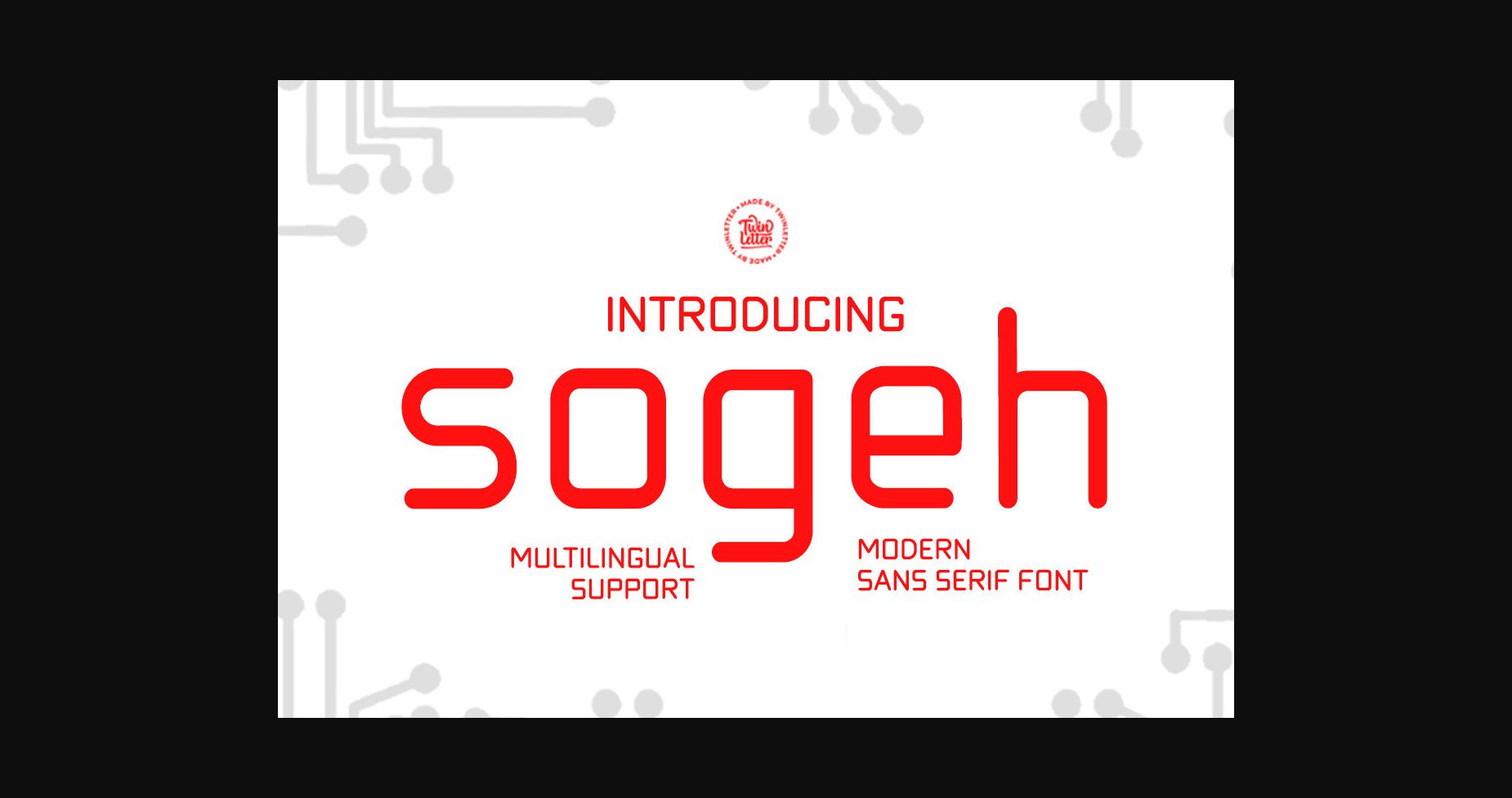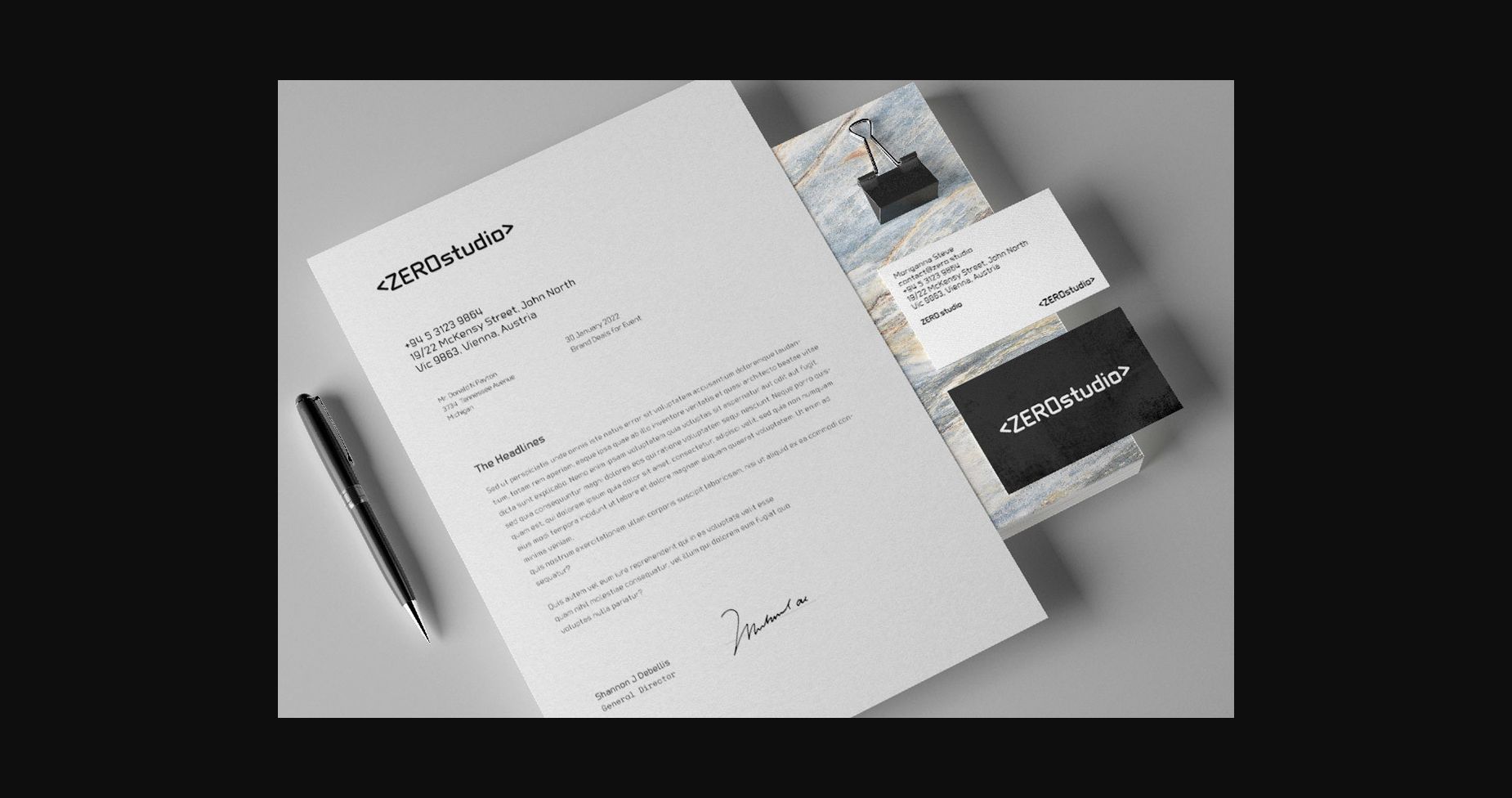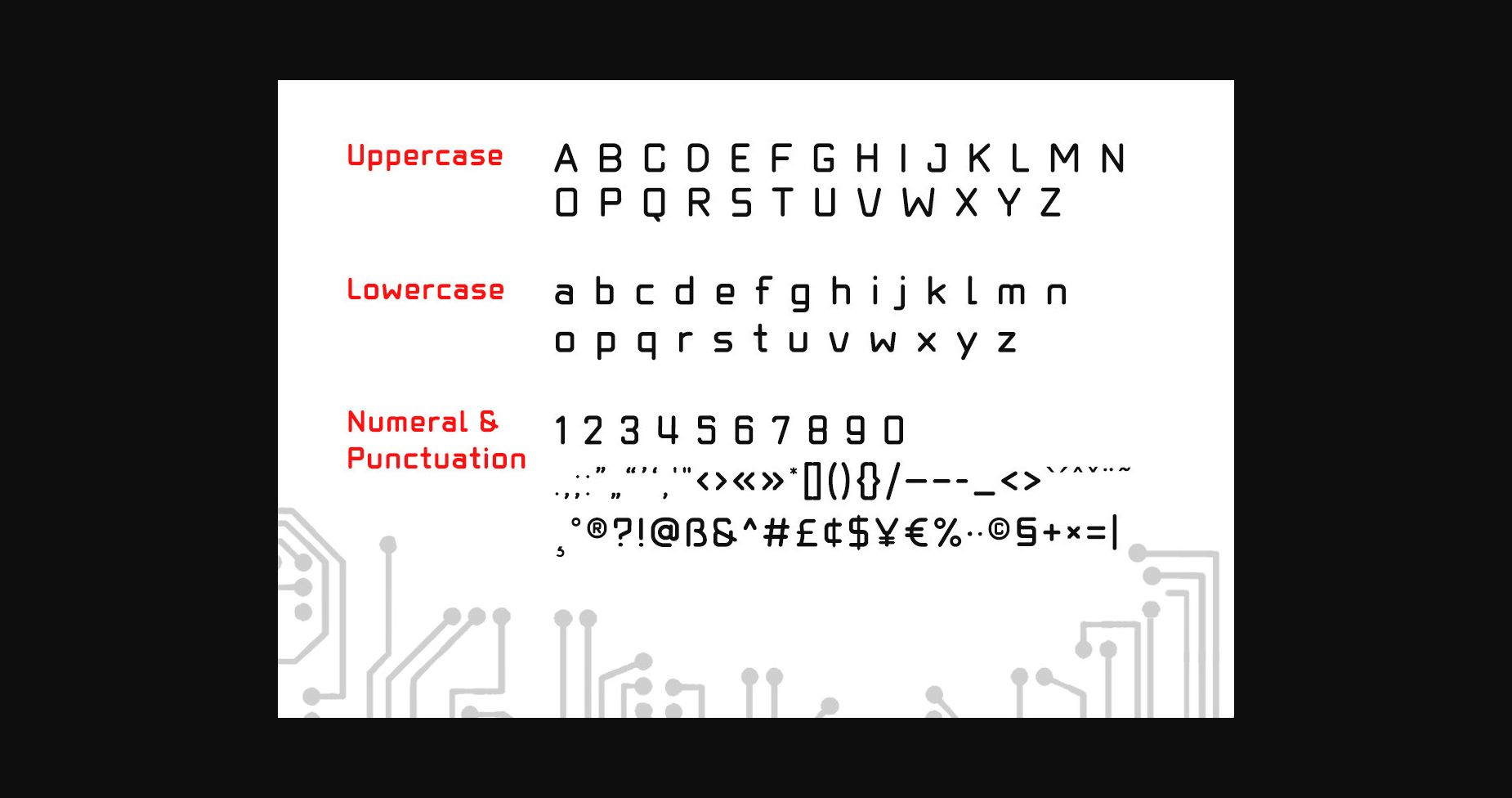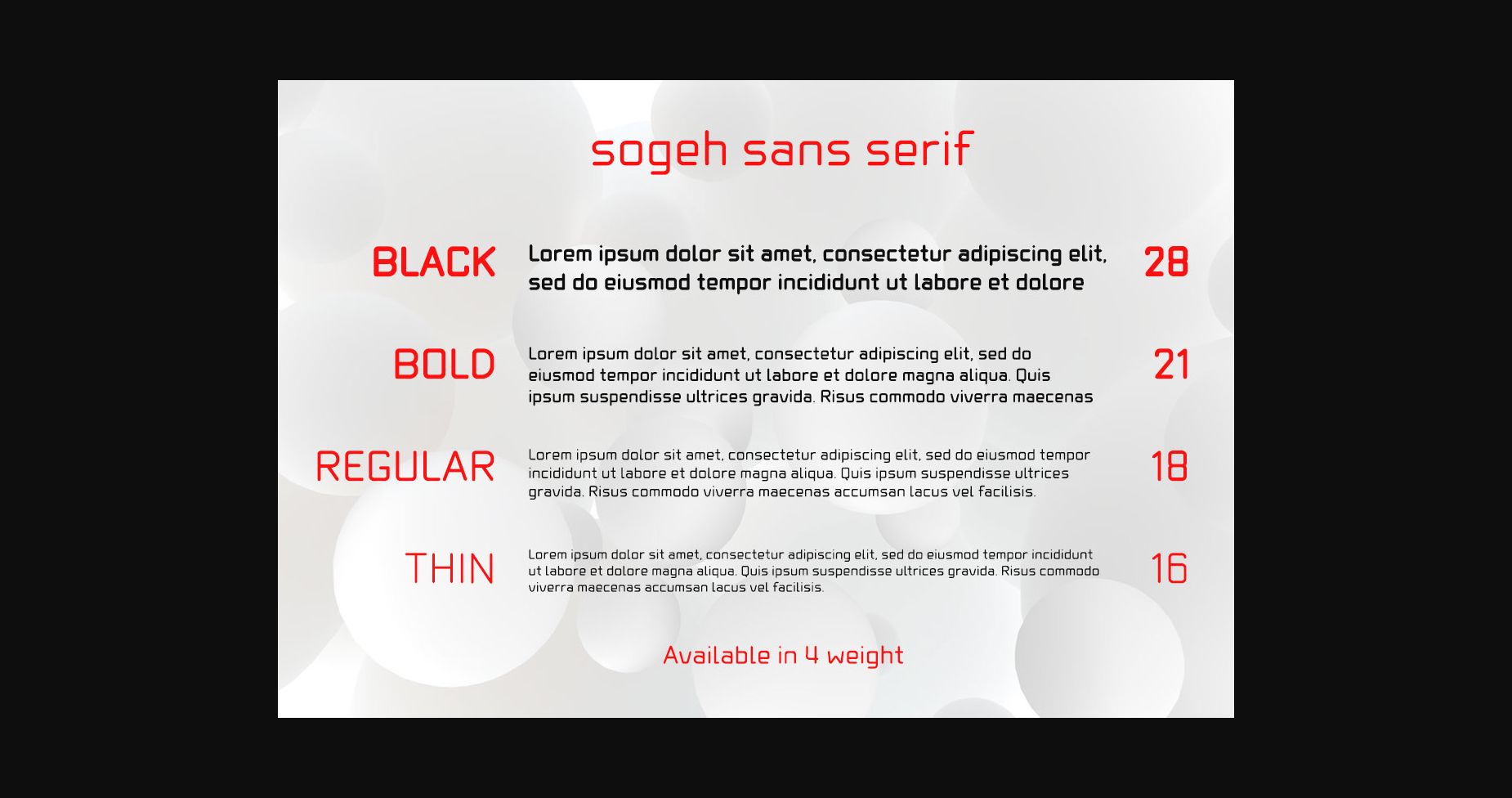
About Sogeh Font
Sogeh is a sans serif font with a minimalistic and straightforward design.
This basic font has a modern shape and an exotic appearance while being comfortable and attractive to the eye. With this font, all of your special projects will look luxurious, cool, and will be appreciated by a large portion of your audience. Use this typeface to achieve the best possible outcomes in all your projects.
Of course, your various design projects will be perfect and extraordinary if you use this font – because this font is equipped with different characters suitable for titles, subtitles, and body text.
This basic font has a modern shape and an exotic appearance while being comfortable and attractive to the eye. With this font, all of your special projects will look luxurious, cool, and will be appreciated by a large portion of your audience. Use this typeface to achieve the best possible outcomes in all your projects.
Of course, your various design projects will be perfect and extraordinary if you use this font – because this font is equipped with different characters suitable for titles, subtitles, and body text.